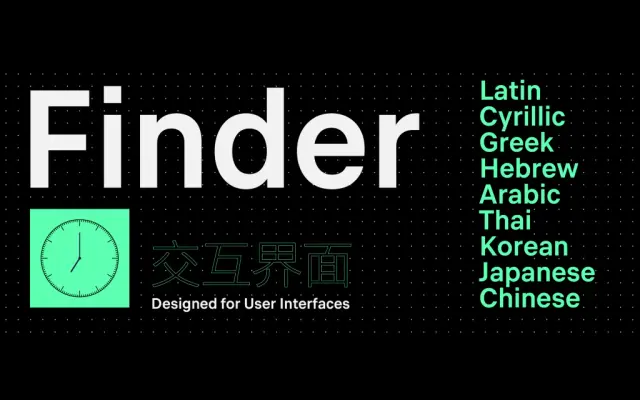
A neutral, multi-script sans-serif built for user interfaces, covering nine writing systems from Arabic and Hebrew to Thai, CJK and Cyrillic.
Designed specifically for UI environments where legibility at small sizes is critical, Finder uses open forms, large counters and generous spacing to hold up in dense navigation contexts. The family ships in three weights with a variable font included, keeping the range lean but practical. Its nine-script coverage makes it a rare option for global digital products that need typographic consistency across Latin, CJK, Arabic, Hebrew and Thai in a single typeface.
Finder is a humanist sans-serif designed with open forms and generous counters for UI legibility across dense screens; its neutral character and cross-script harmony are consistent with humanist sans conventions adapted for multi-script digital environments.